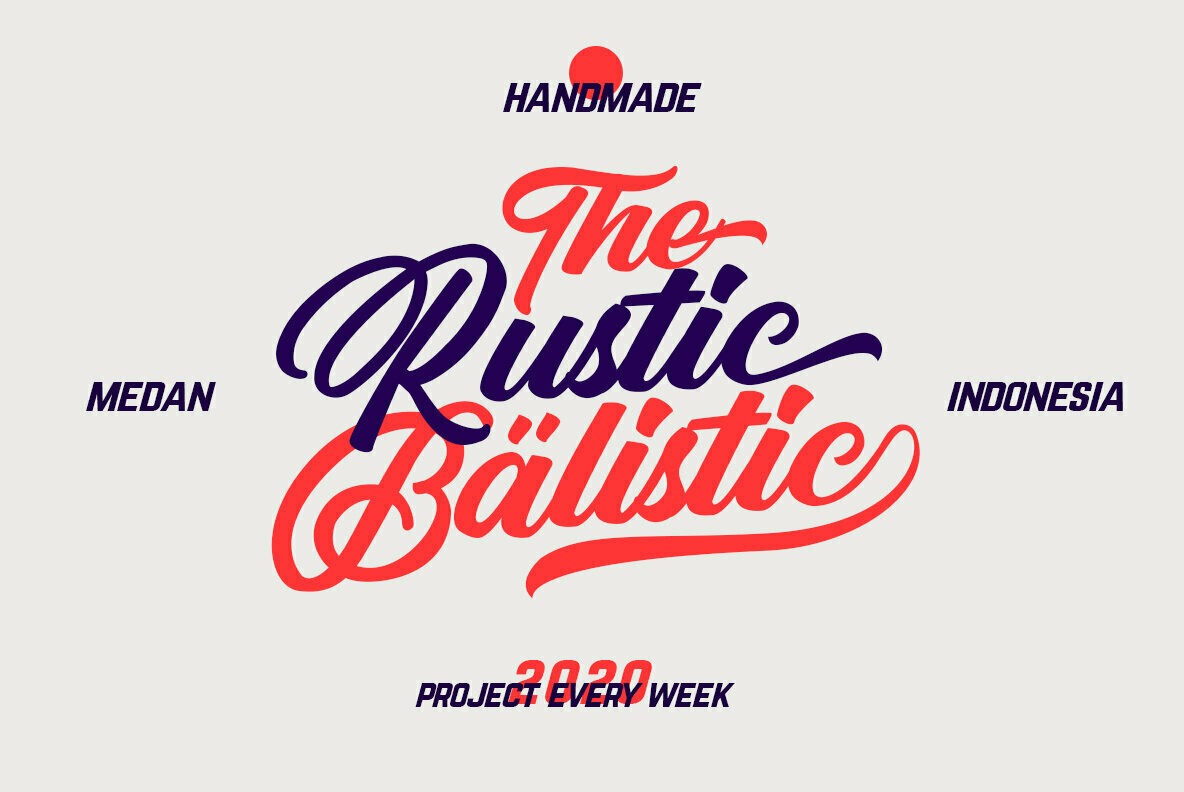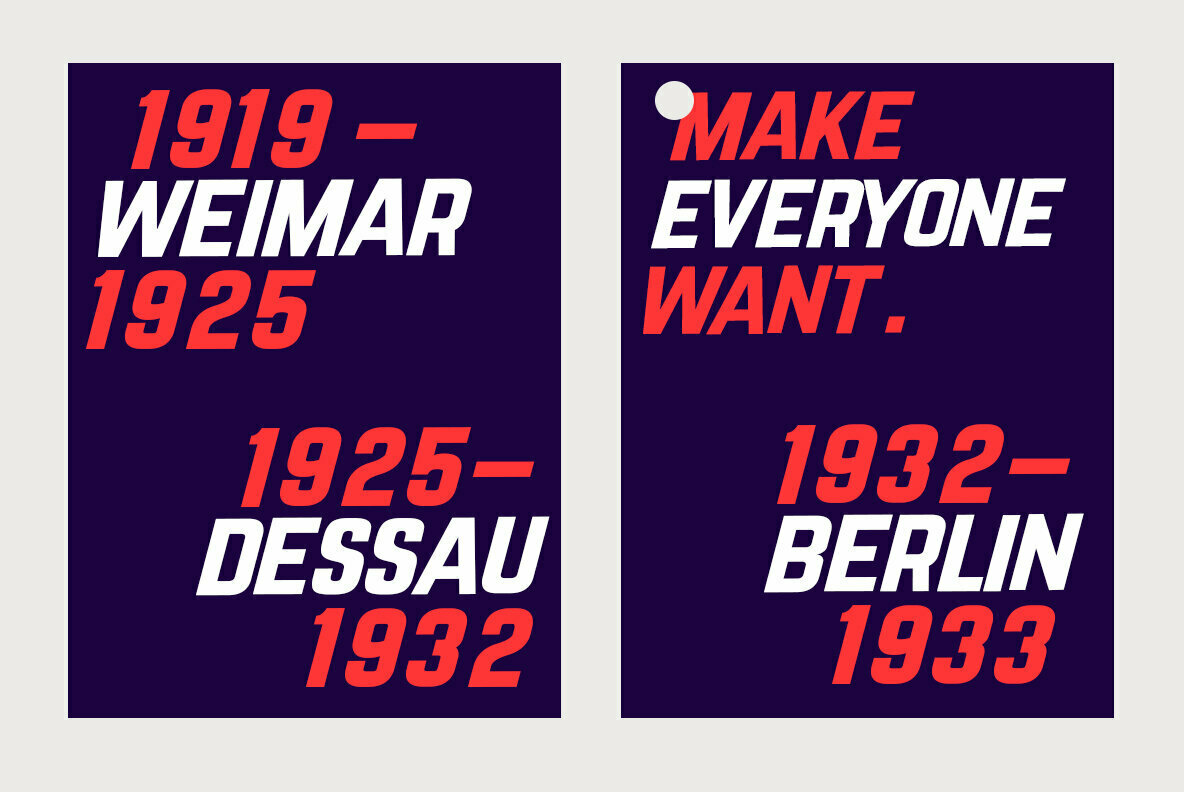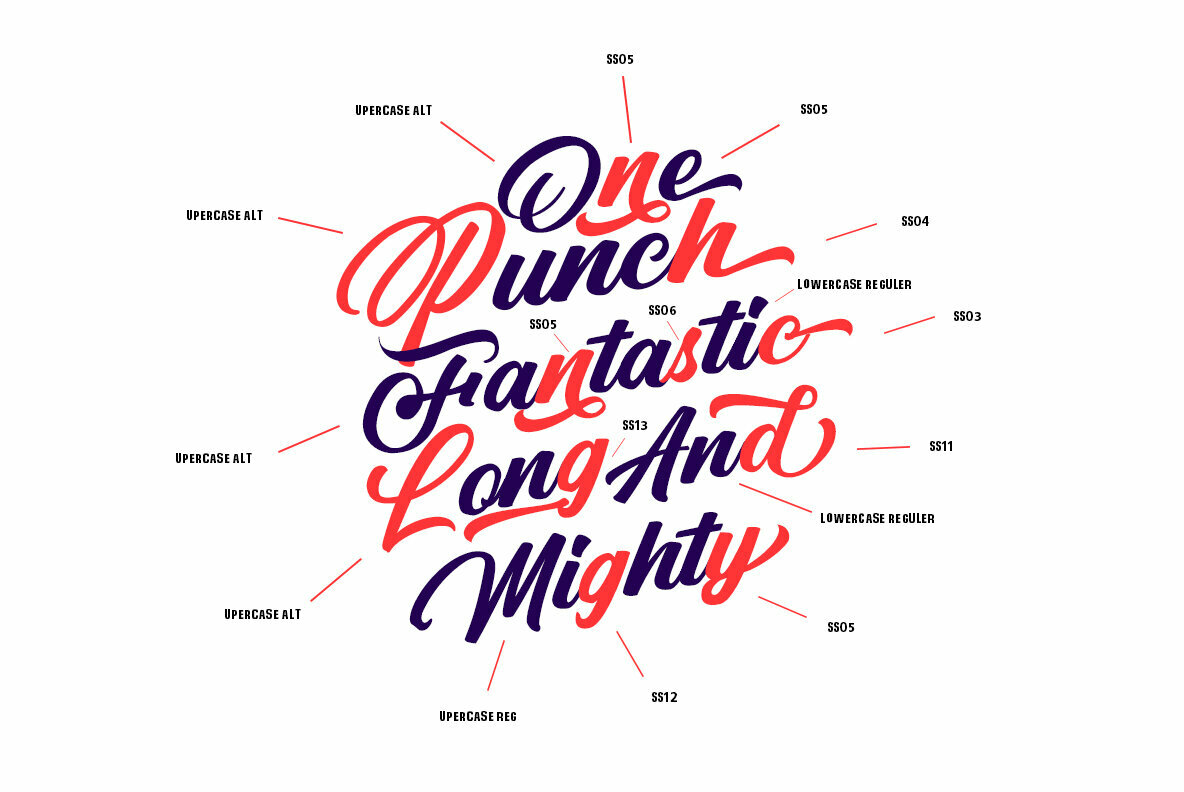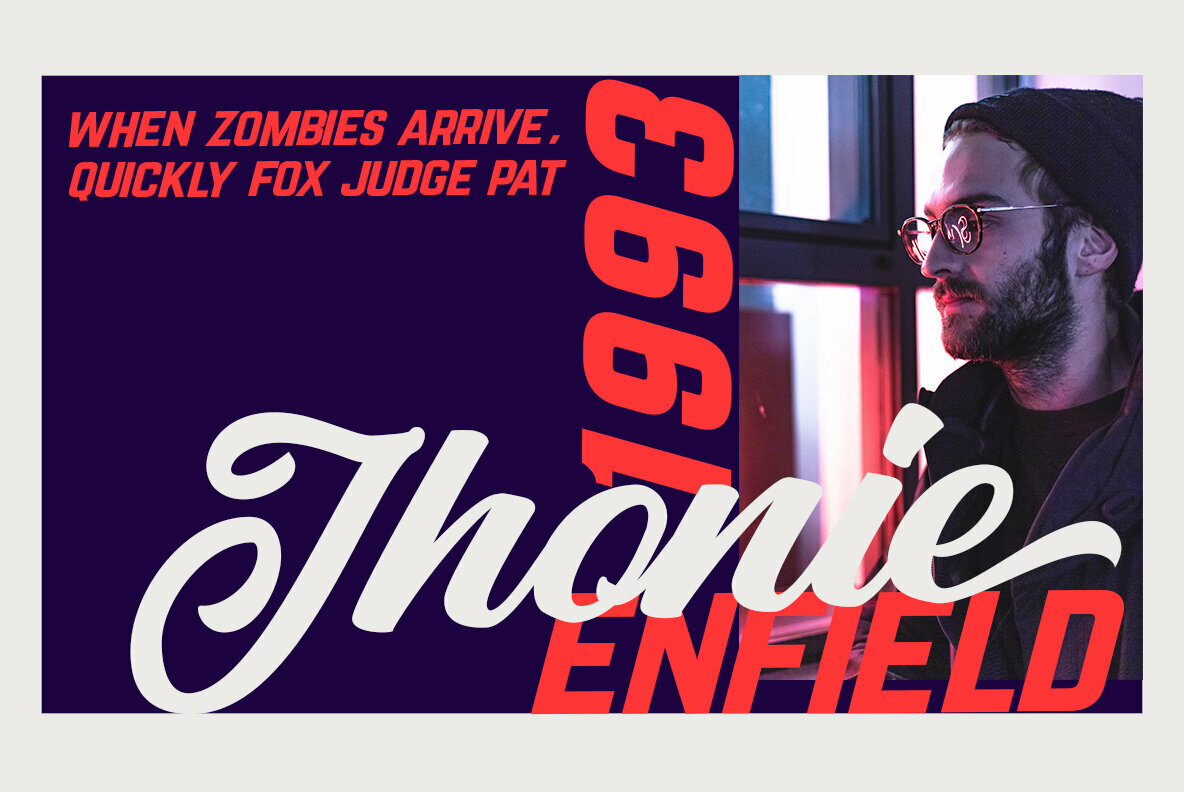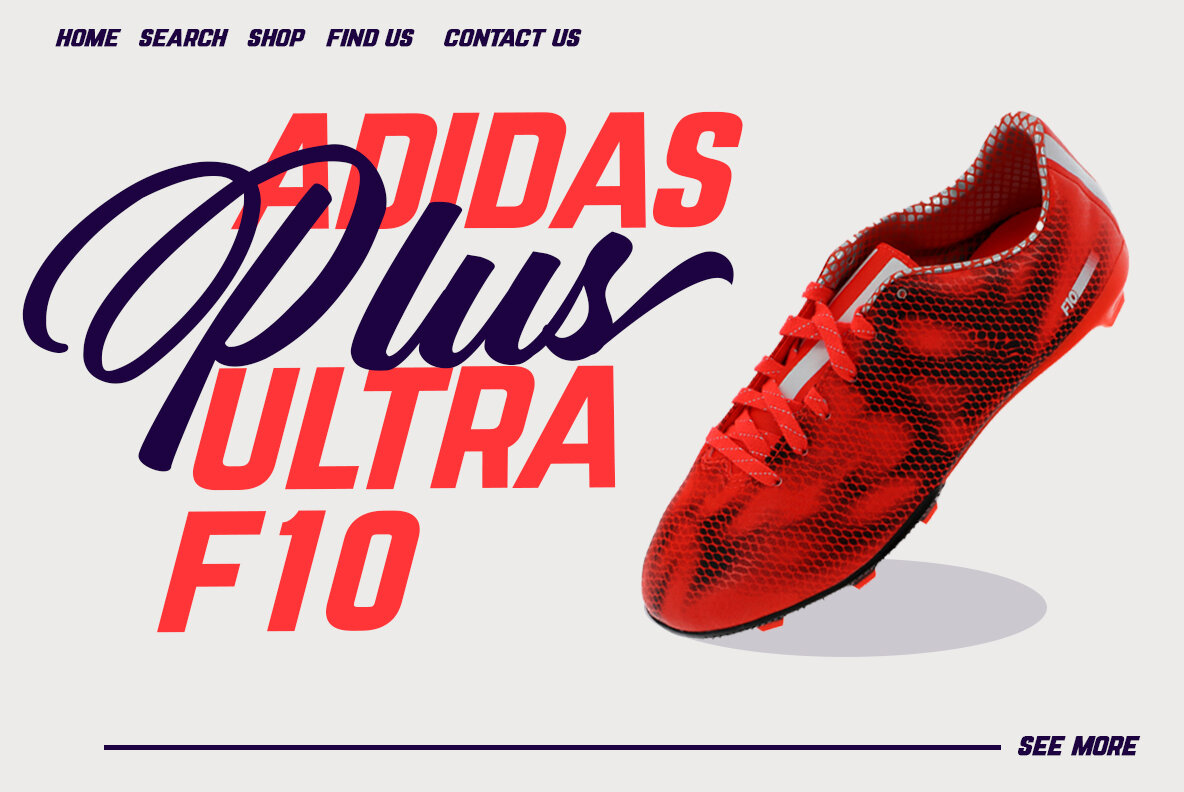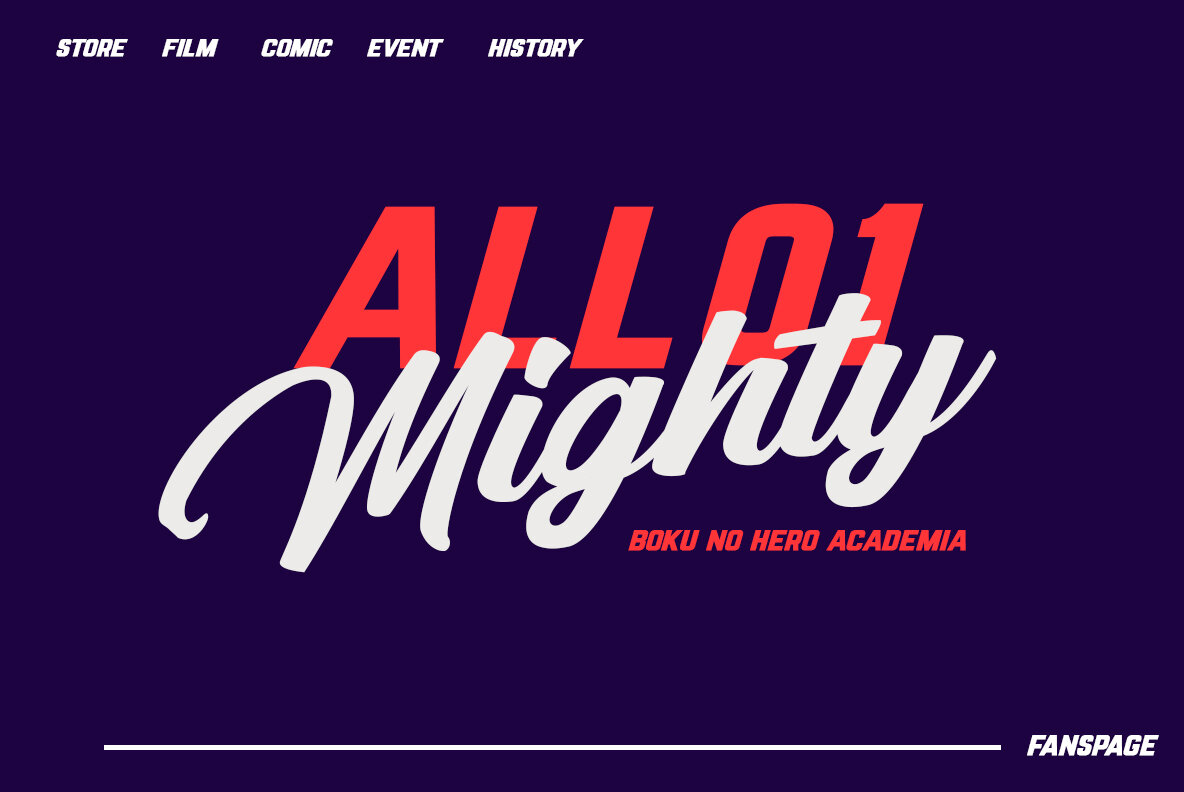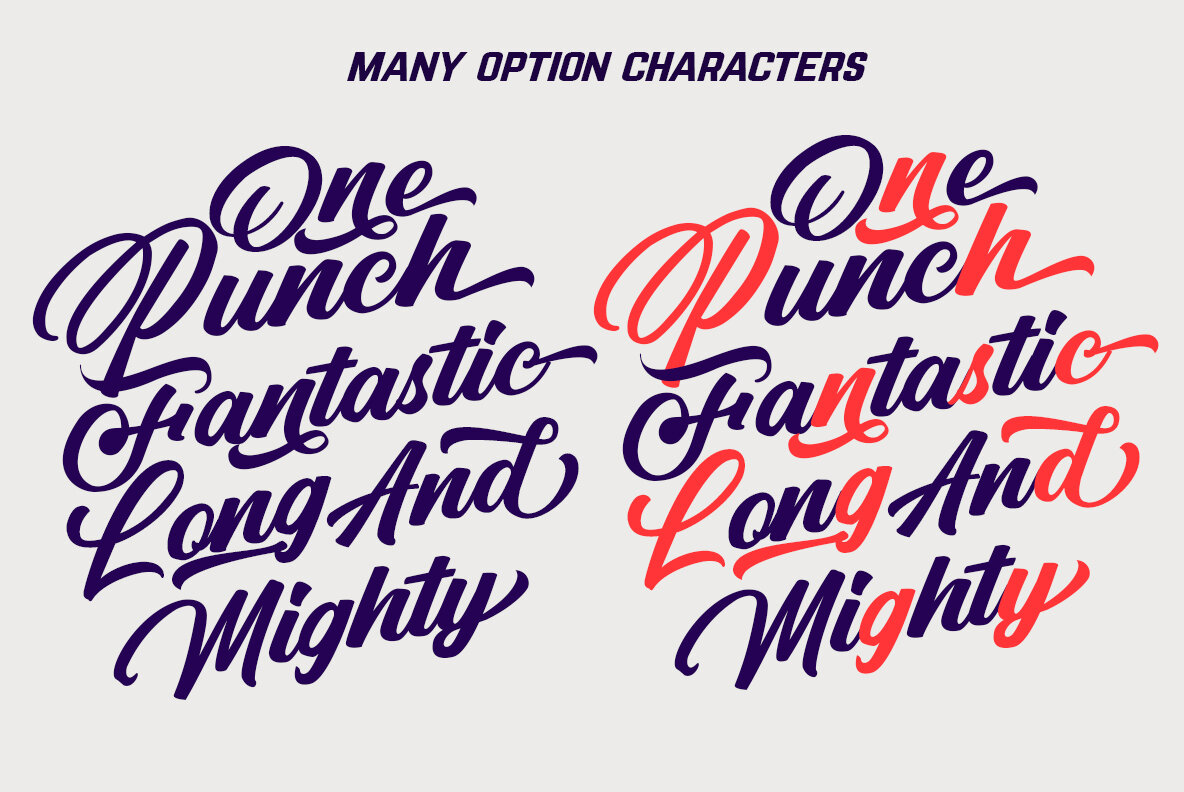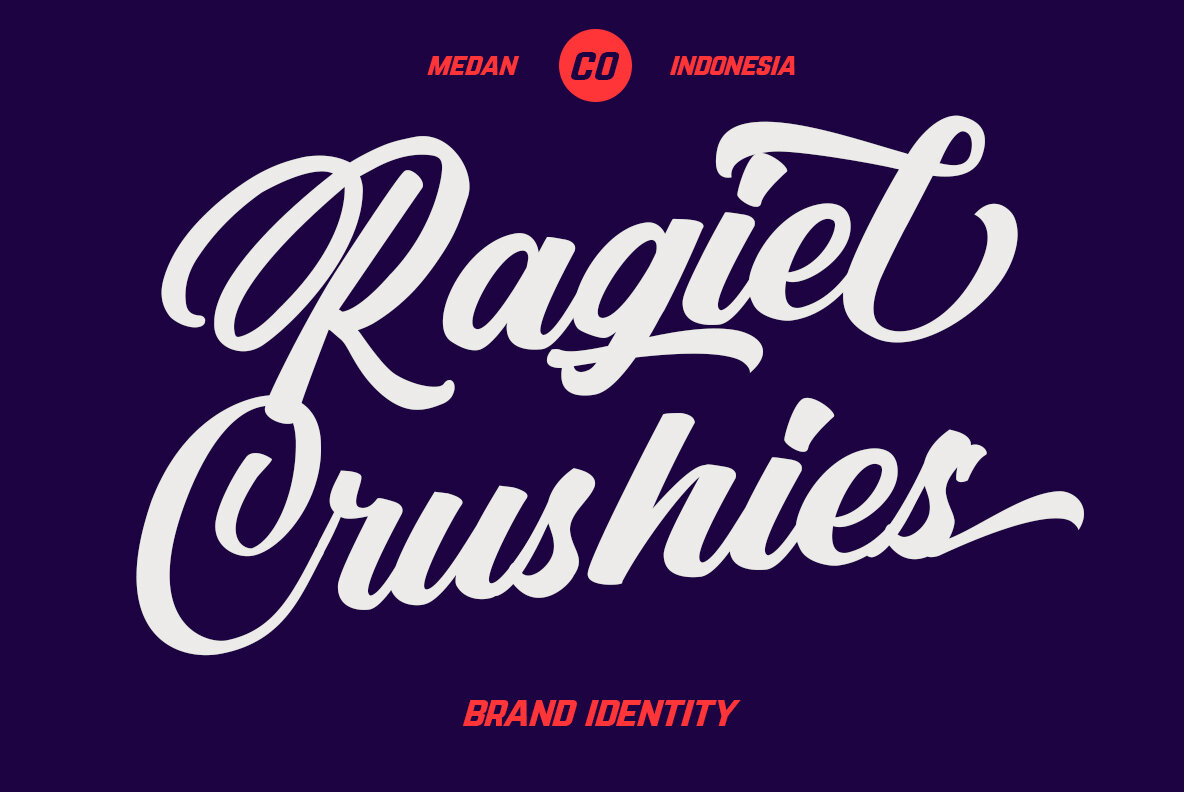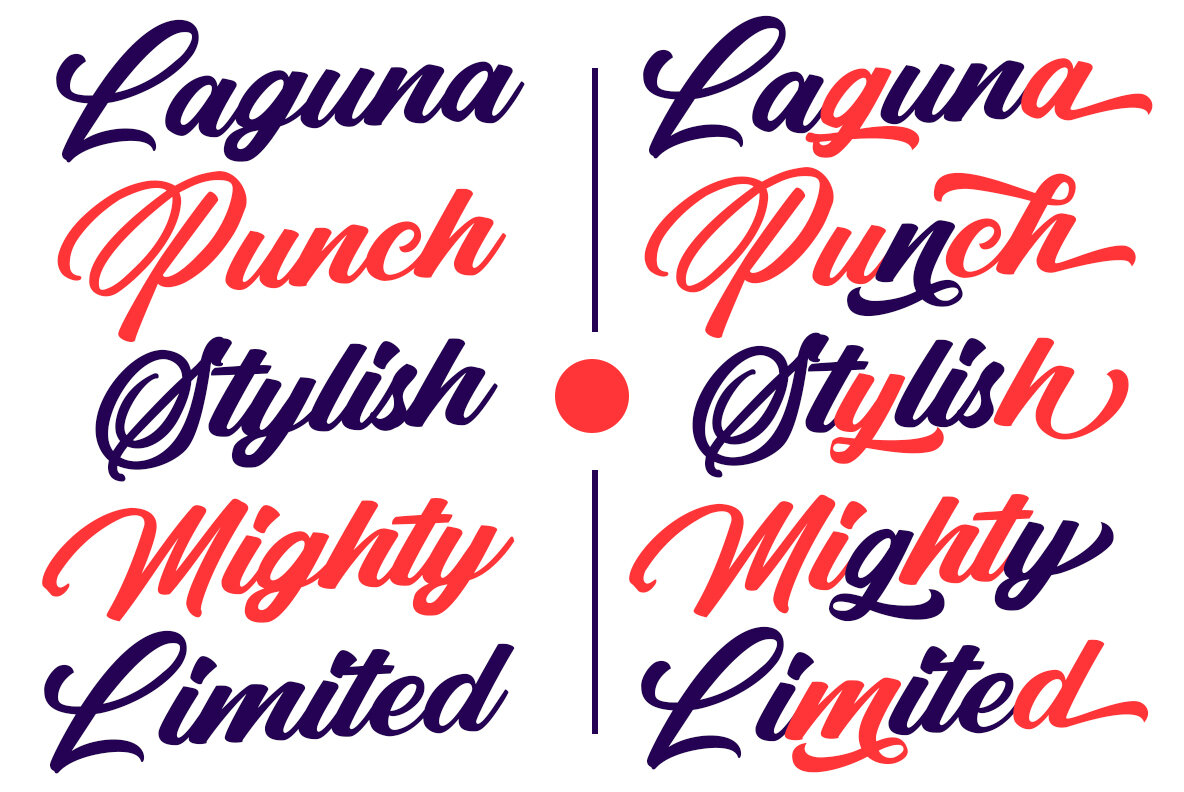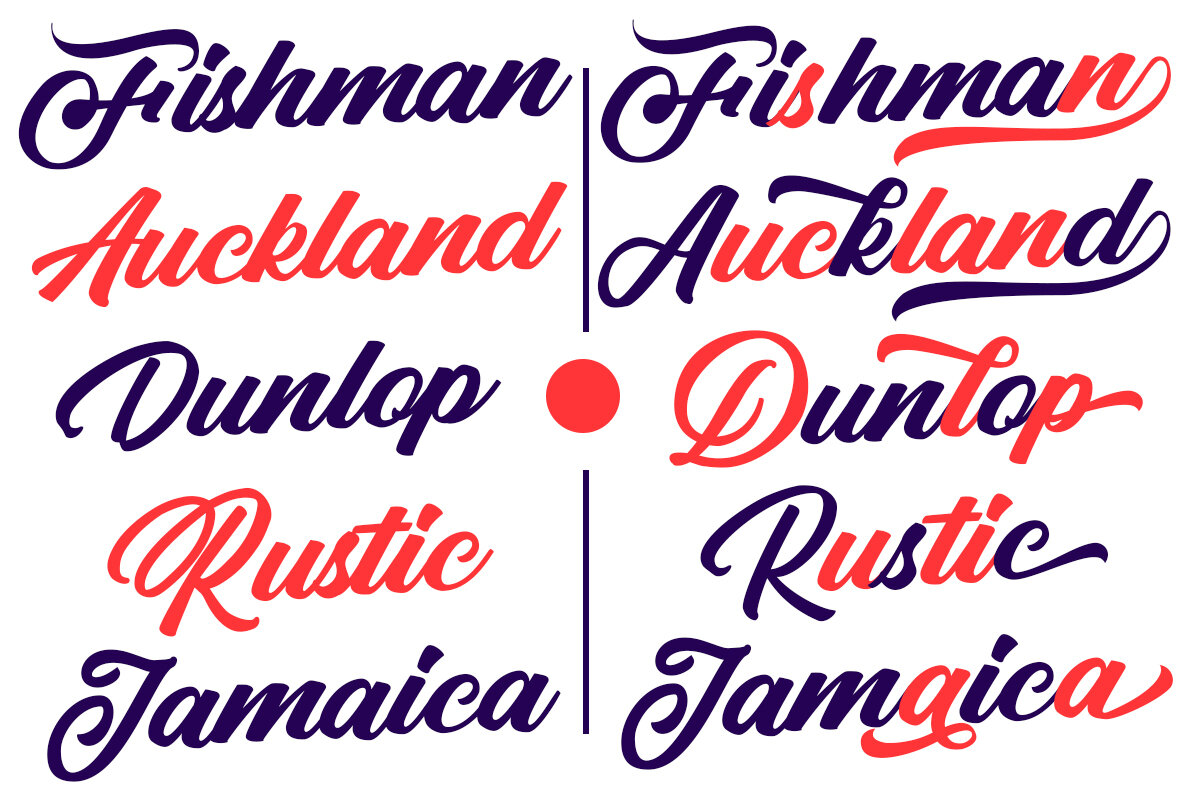
Punch Limit Font
Punch Limit embodies flexibility and charm, offering a script typeface peppered with an array of alternates. Each uppercase letter presents alternatives ranging from ss01 to ss15, inviting creativity in personalizing your designs. Paired with sans serif oblique, it exudes a retro and classic vibe that captivates visually.Punch Limit: A Versatile Script Typeface